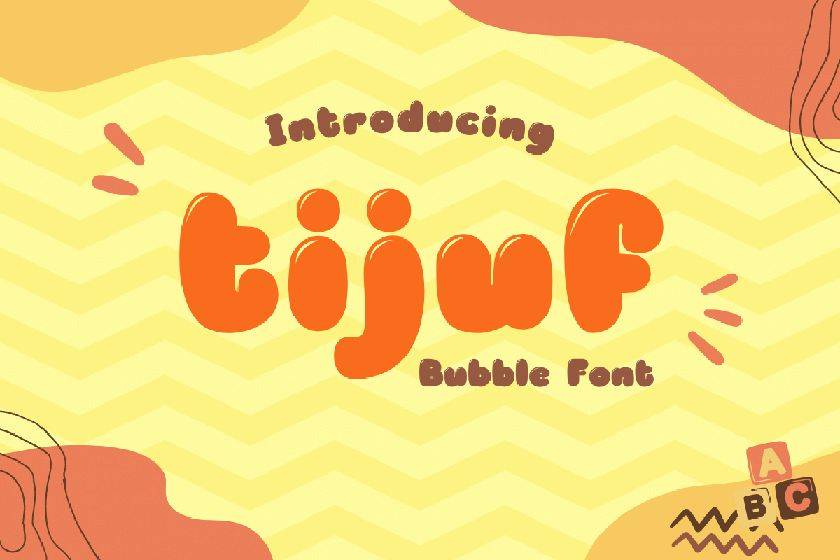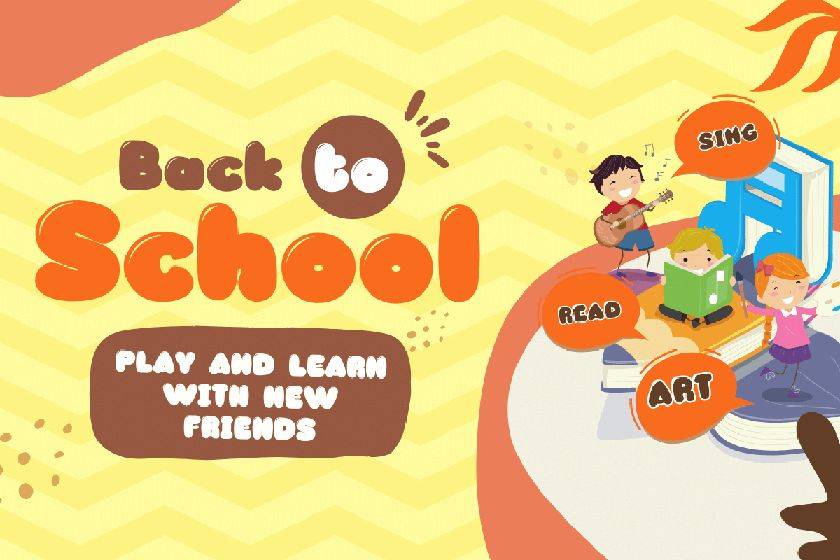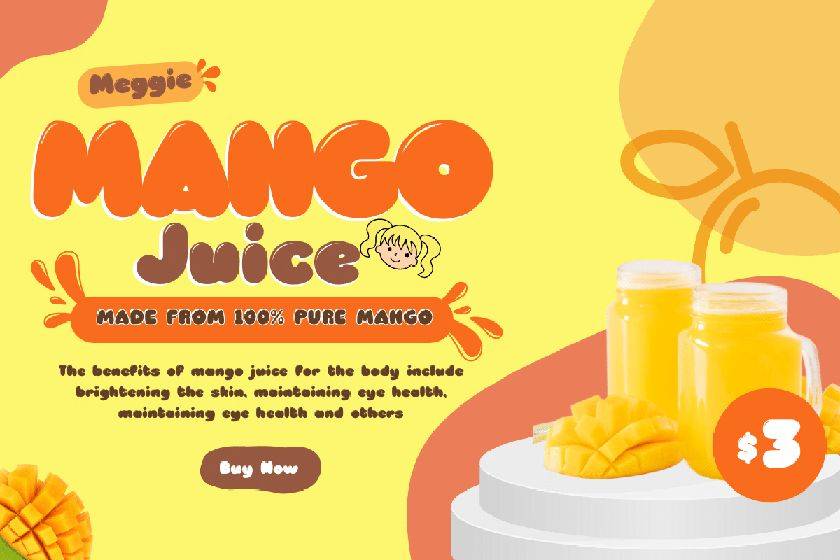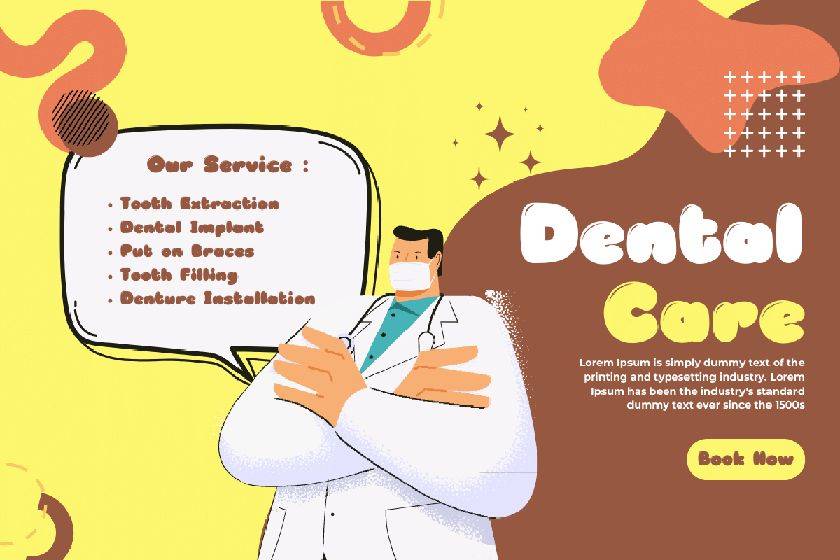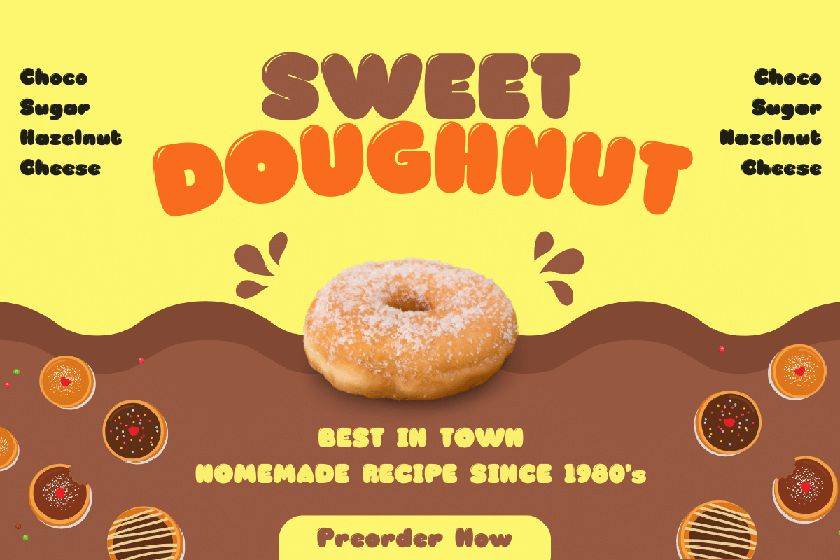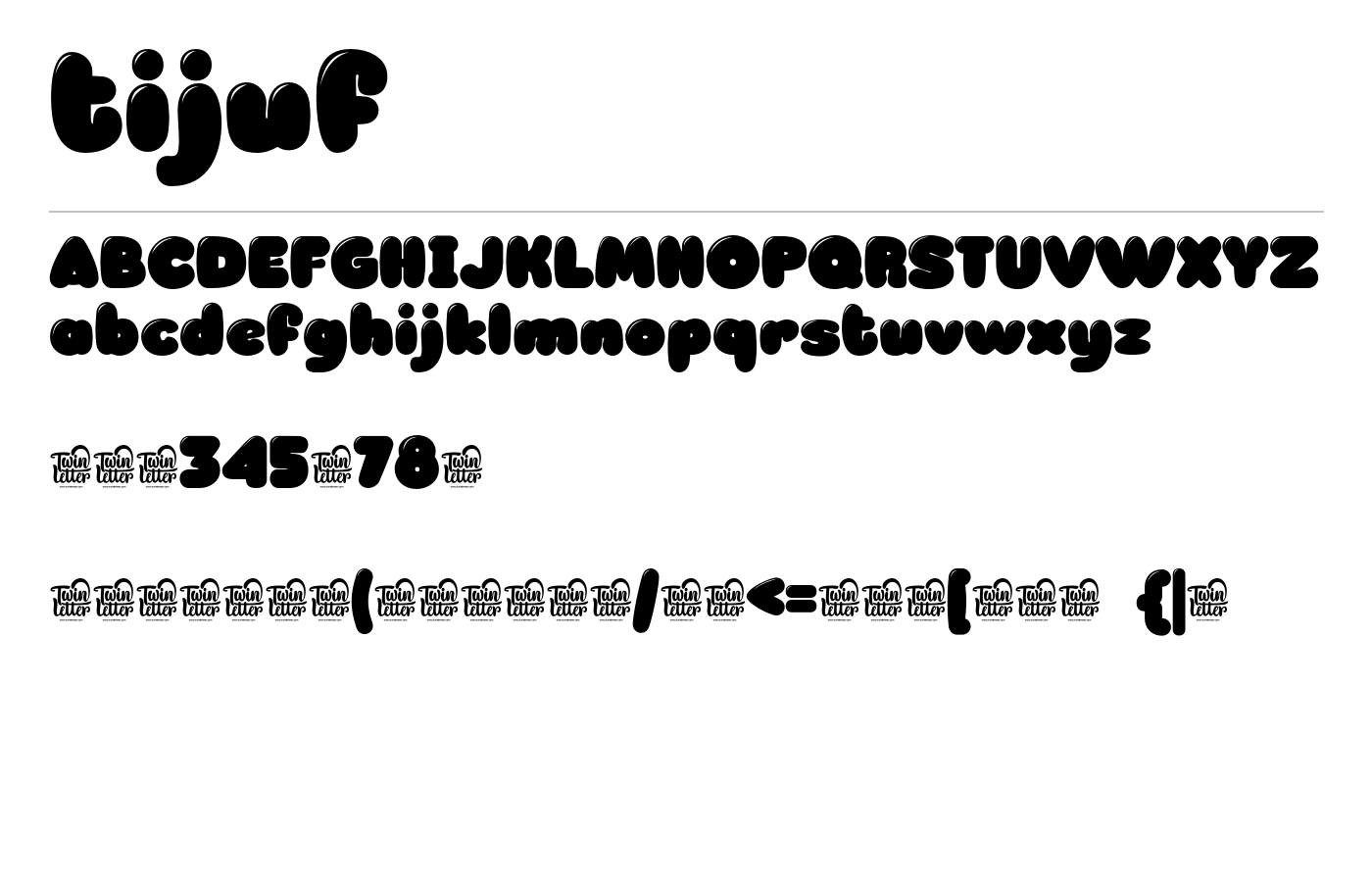
Tijuf is a bold, playful sans serif font characterized by its thick, rounded shapes and uniform stroke weight that give it a bubbly and friendly appearance. Its high x-height and compact letterforms make it highly legible and perfect for eye-catching headlines or logos that seek a fun, approachable vibe. This font works well for creative branding, children’s products, posters, or any design that calls for warmth and strong personality.
Tijuf Font